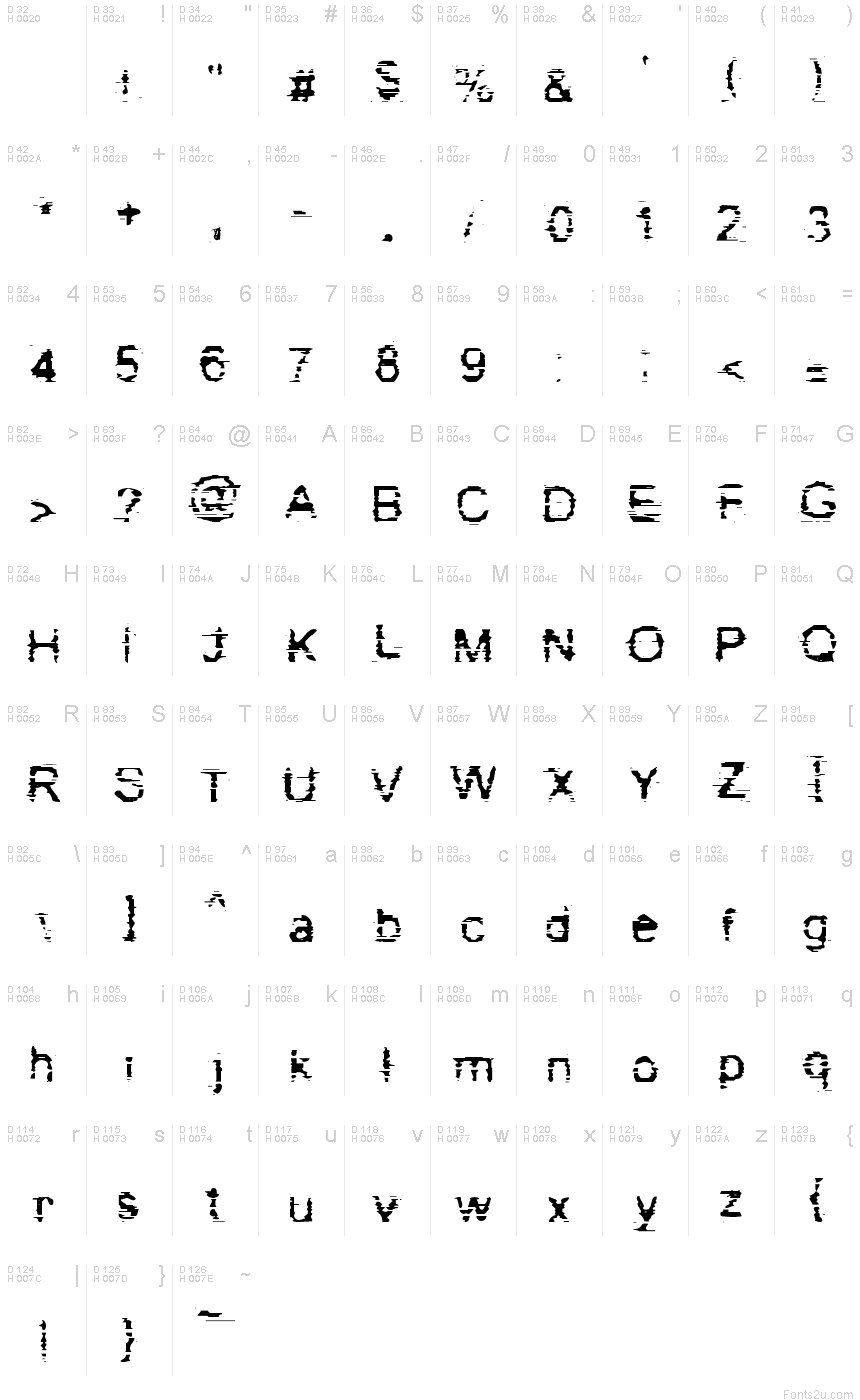
Bad Cargo 2.0
Bad Cargo font by MR. Fisk is a free distorted display typeface that looks like it’s been dragged across a rusted loading dock and run through a cheap photocopier. Jagged edges, broken contours, and inky smears give each letter a stressed, glitchy texture that feels raw and unstable, yet still readable at larger sizes. It’s the kind of messy, industrial energy you reach for when clean typography feels too safe.
Using Bad Cargo, you can push headlines for horror posters, punk or metal album art, dystopian game titles, experimental zines, streetwear graphics, and underground event flyers. This free font shines when it’s big, bold, and given room to breathe; pair it with a neutral sans serif for body text so its chaotic rhythm stays in the spotlight.